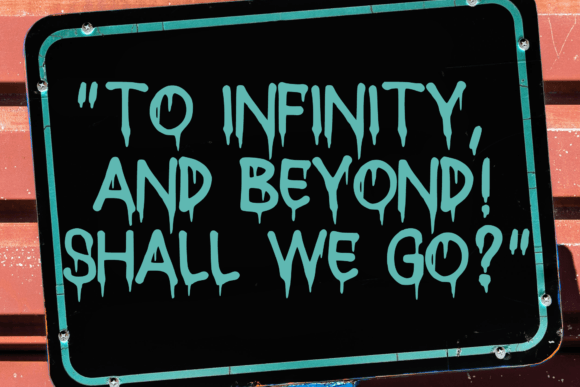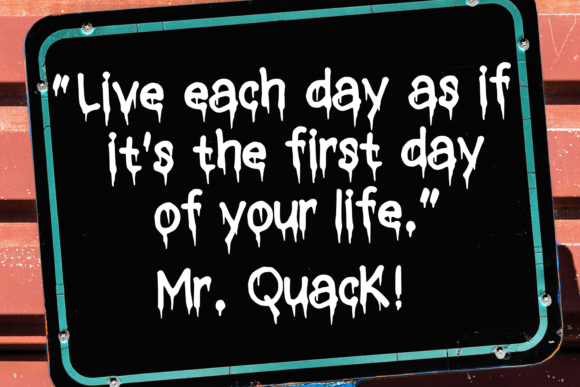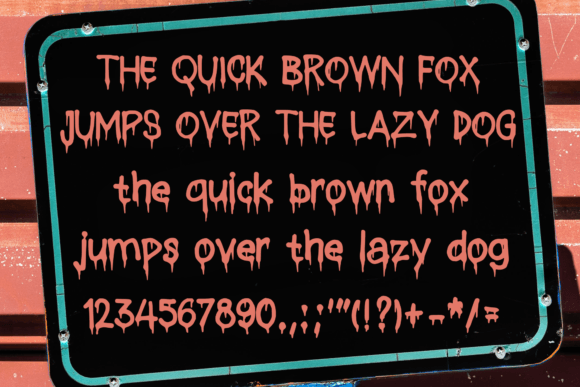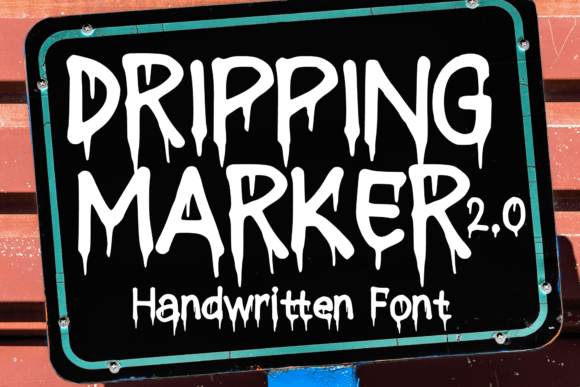
Dripping Marker 2.0 Font: Elevate Your Designs with a Cool, Hand-Painted Style
Are you on the hunt for a font that adds a playful, artistic touch to your projects? Look no further than the Dripping Marker 2.0 Font! This fantastic, dripping painted-style display font is perfect for designers and crafters seeking to infuse their work with a casual, hand-painted vibe. The latest version of Dripping Marker 2.0 has just been released, and it’s packed with exciting updates that make it more versatile than ever.
What’s New in Dripping Marker 2.0?
The new version of Dripping Marker 2.0 comes with a significant expansion of language support. In addition to English, the font now includes French, German, Italian, and Spanish, making it an excellent choice for designers working on international projects or those who want to cater to a broader audience. This update ensures that you can create stunning designs that resonate with people from diverse linguistic and cultural backgrounds.
One of the standout features of Dripping Marker 2.0 is its incredible versatility. This font is suitable for a wide range of projects, from:
- T-shirts and apparel designs
- Kids’ book designs and illustrations
- Stickers and labels
- And anything else that needs a casual, artistic touch!
Whether you’re a professional designer or a crafter, Dripping Marker 2.0 is sure to become a favorite in your font collection. Its unique, hand-painted style adds a touch of whimsy and personality to any design, making it perfect for projects that require a bit of flair.
Falling in Love with Dripping Marker 2.0
So, what makes Dripping Marker 2.0 so special? Here are just a few reasons why designers and crafters are falling in love with this amazing font:
- Unique Style: Dripping Marker 2.0 boasts a one-of-a-kind, dripping painted-style design that’s sure to make your projects stand out.
- Versatility: This font is incredibly versatile and can be used for a wide range of projects, from fun and playful designs to more sophisticated and elegant ones.
- Multilingual Support: With support for English, French, German, Italian, and Spanish, you can create designs that cater to a global audience.
Tips for Using Dripping Marker 2.0
To get the most out of Dripping Marker 2.0, here are a few tips to keep in mind:
- Experiment with Colors: Dripping Marker 2.0 looks amazing in bold, bright colors. Don’t be afraid to experiment with different color combinations to find the perfect look for your project.
- Play with Texture: Add an extra layer of depth to your design by incorporating texture. You can use Dripping Marker 2.0 with textured backgrounds or overlay it with other design elements.
- Keep it Simple: While Dripping Marker 2.0 is a bold font, it’s best used in moderation. Balance it with simpler design elements to avoid overwhelming your design.